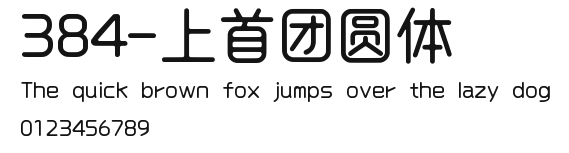
384-上首团圆体 Preview
• Font Name: 384-上首团圆体
• Full Font Name: 384-上首团圆体
About 384-上首团圆体.ttf
384-上首团圆体.ttf is a modern, elegant sans-serif font designed for ultimate readability and visual harmony. Perfect for branding, headlines, web design, and print materials.